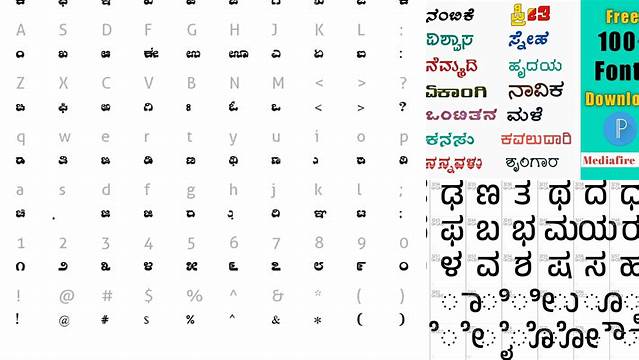
Why Kannada Fonts Matter
Kannada, a Dravidian language spoken predominantly in the state of Karnataka, India, boasts a rich literary and cultural heritage. The Kannada script, derived from the Brahmi script, is visually distinct and aesthetically pleasing. High-quality Kannada fonts are essential for preserving and promoting the language in the digital age. Whether you're creating a website, designing a brochure, or writing a document, using the right font can significantly enhance the readability and visual appeal of your text.
Choosing the right Kannada font is crucial for effective communication and preserving the cultural integrity of the language. A well-designed font not only makes the text legible but also adds character and personality to your work. Imagine reading a beautifully written Kannada poem in an elegant, traditional font versus a generic, poorly designed one – the impact is vastly different. Fonts carry the essence of a language's heritage, and using them thoughtfully can make your content more engaging and impactful. Furthermore, the clarity of a font directly affects readability, which is paramount for conveying your message effectively. A clear, well-spaced font ensures that your audience can read comfortably and understand your content without strain. In a world where visual communication is increasingly important, selecting the right font is not just about aesthetics; it's about making a statement and connecting with your audience on a deeper level. By understanding the nuances of Kannada script and the importance of font design, you can ensure that your work stands out and truly represents the beauty and richness of the Kannada language.
The Importance of Legibility
Legibility is paramount when selecting a Kannada font. A font that is difficult to read can frustrate your audience and detract from your message. Look for fonts with clear letterforms and adequate spacing. The individual characters should be easily distinguishable, even at smaller sizes. This is particularly important for body text, where readability is key to maintaining reader engagement. Choosing a legible font ensures that your audience can focus on the content rather than struggling to decipher the text. Fonts that are too ornate or have overly stylized characters can be challenging to read, especially for those who are not familiar with the font. Therefore, prioritize clarity and simplicity when selecting a font for your project. The goal is to make the text as accessible as possible, ensuring that your message is conveyed effectively and without any unnecessary barriers.
Expressing Cultural Identity
Fonts can also be a powerful tool for expressing cultural identity. Kannada fonts come in various styles, ranging from traditional to modern. Choosing a font that reflects the cultural context of your content can add depth and authenticity to your message. For instance, a traditional font might be suitable for a formal document or a literary work, while a modern font might be more appropriate for a contemporary design project. The right font can evoke a sense of heritage and connect your audience to the rich history of the Kannada language. Consider the tone and purpose of your content when selecting a font that resonates with the cultural nuances you wish to convey. A well-chosen font can be a subtle yet powerful way to honor and celebrate the Kannada culture.
Making a Visual Impact
Beyond legibility and cultural expression, fonts play a crucial role in making a visual impact. A well-designed font can capture attention and create a memorable impression. Different fonts convey different moods and feelings, so choosing the right one can enhance the overall aesthetic of your project. For example, a bold font might be used for headlines to grab attention, while a softer, more elegant font might be used for body text to create a sense of sophistication. Experiment with different fonts to see how they interact with your design elements and choose one that complements your overall vision. A font is not just a means of displaying text; it is a design element in itself, capable of adding character and flair to your work.
Font Squirrel: Font Squirrel is another excellent resource for free fonts, including Kannada fonts. They offer a curated collection of fonts that are licensed for commercial use. Font Squirrel ensures that all the fonts they offer are of high quality and legally available for use in your projects. This is a great option if you want a more unique selection of fonts, as it often features contributions from independent designers. The website also provides helpful information about font licensing, making it easier to understand the terms of use. Font Squirrel is a valuable resource for designers who want to explore different font styles and ensure they are using fonts legally.
Websites Offering Free Fonts: Several websites specialize in offering free fonts, including those for various Indian languages. These websites often have a wide range of styles, from traditional to modern. When downloading from these sites, it's essential to check the licensing terms to ensure the fonts are free for your intended use. Some websites may offer fonts that are free for personal use but require a license for commercial projects. Always read the fine print to avoid any copyright issues. These websites can be a treasure trove of unique and interesting fonts, but due diligence is necessary to ensure you are using them appropriately.
Open-Source Font Repositories: Platforms like GitHub often host open-source font projects. These projects are collaborative efforts, and the fonts are typically free to use and distribute. Open-source fonts are a great option for those who value community-driven design and want to support collaborative projects. These repositories often contain fonts that are highly customizable and adaptable to various design needs. However, navigating these platforms may require some technical knowledge. If you are comfortable with GitHub and open-source principles, you can find some truly unique and high-quality Kannada fonts in these repositories.
Downloading and using Kannada fonts is essential for anyone who wants to create visually appealing and culturally relevant content in the Kannada language. By understanding the importance of font choice, exploring the resources available for free fonts, and following best practices for font usage, you can enhance your projects and effectively communicate your message. Remember to always respect font licenses and prioritize readability to ensure your content is both beautiful and accessible.